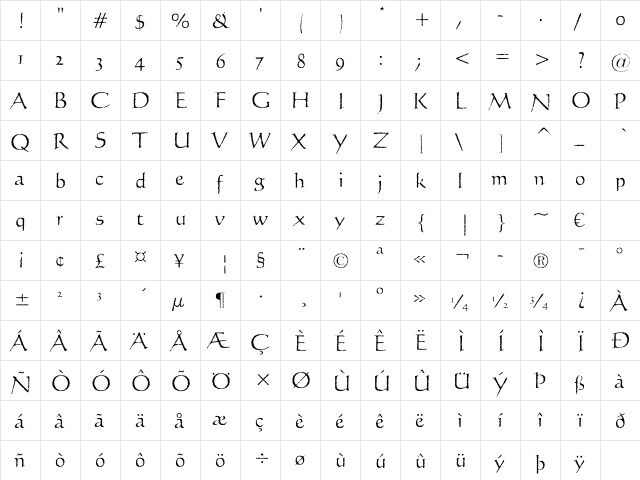
Licinia 'Aged' Regular Font Preview
Licinia 'Aged' Regular
Design Context for Licinia 'Aged' Typeface
Licinia 'Aged' is a composed and adaptable typeface that performs quietly and consistently across a wide range of design contexts.